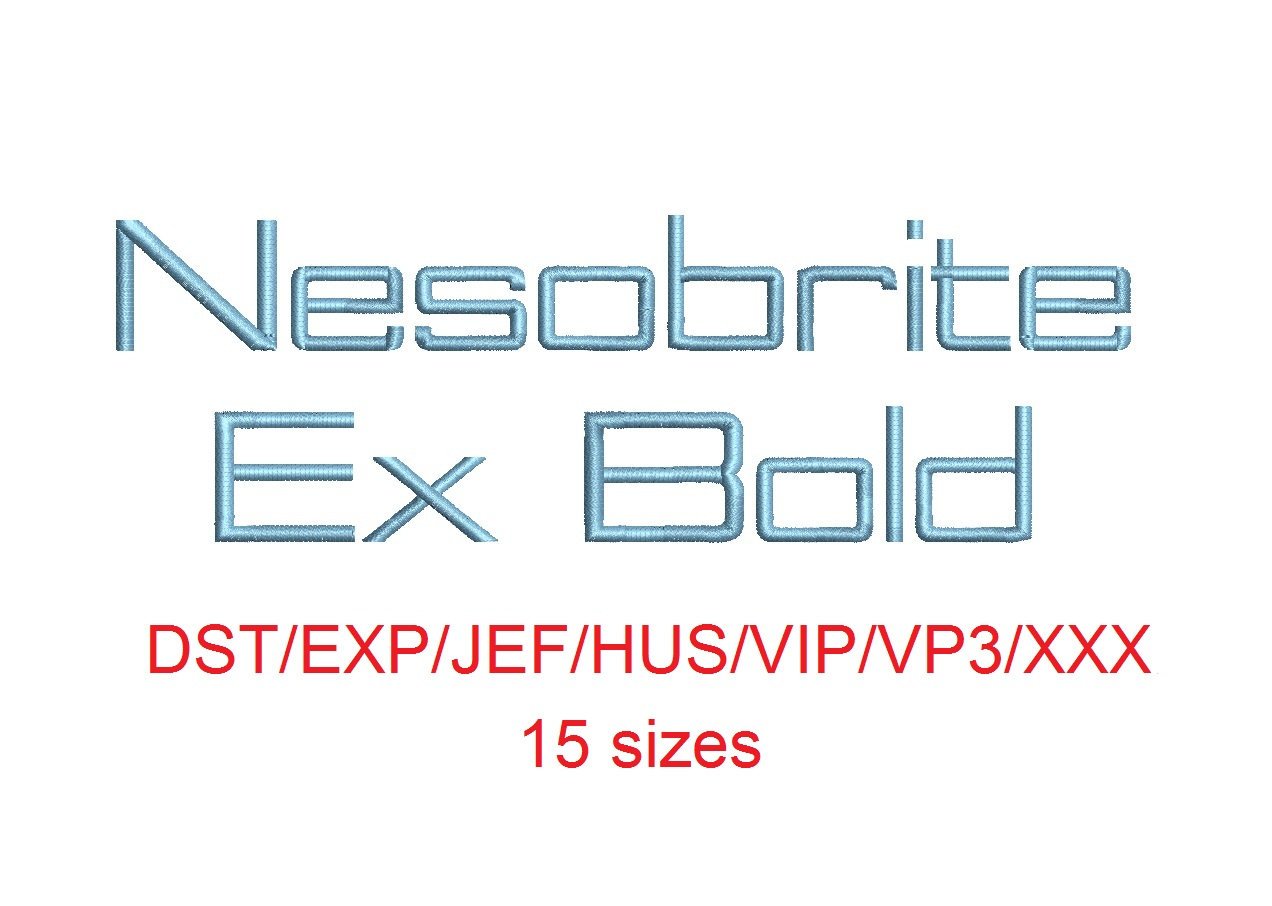
Introducing the Nesobrite Ex Bold™ embroidery font, a versatile and stylish addition to your embroidery toolkit. This block font comes in 15 sizes, ranging from small to large, making it perfect for a variety of projects.
Created with Wilcom Embroidery Software, the Nesobrite Ex Bold™ font set includes 26 upper case letters, 26 lower case letters, numbers 0 to 9, and 11 punctuation marks. The font also features satin stitches with auto stitch for larger sizes.